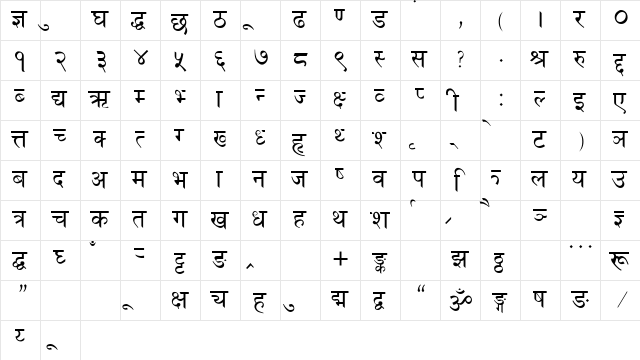
Golchha_Nepali NORMAL
Design Context for Golchha_Nepali Typeface
Golchha_Nepali offers clean, dependable letterforms without strong stylistic allegiance, making it a practical choice for designers who need flexibility.